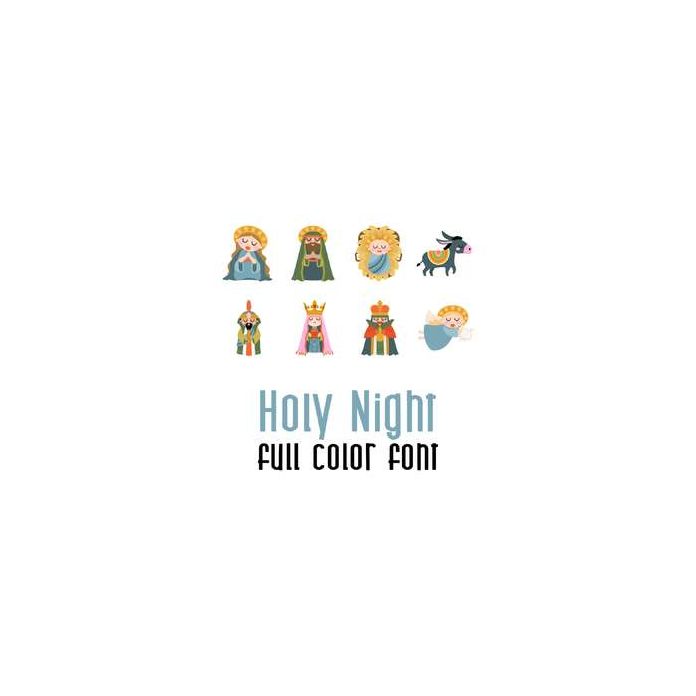
This adorable full color doodlebat font features beautiful Nativity characters and scene. Perfect for cards, crafts, gifts, decor, scrap book pages, planner stickers and more!